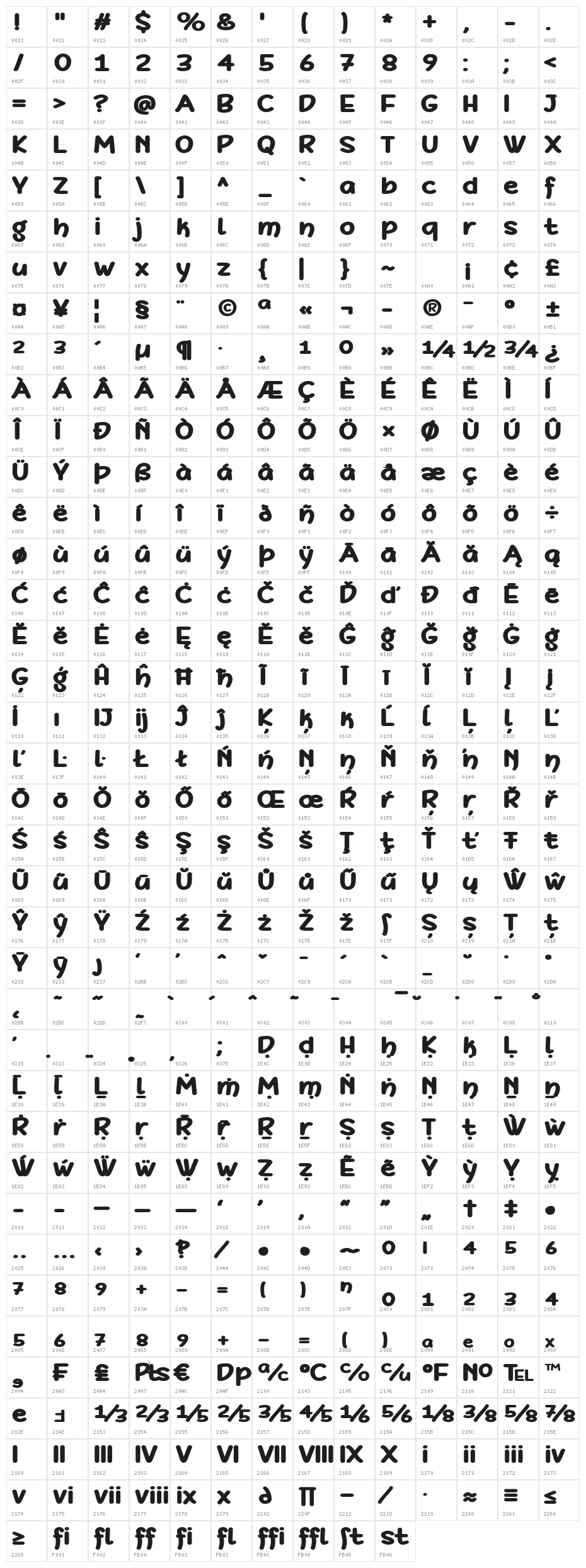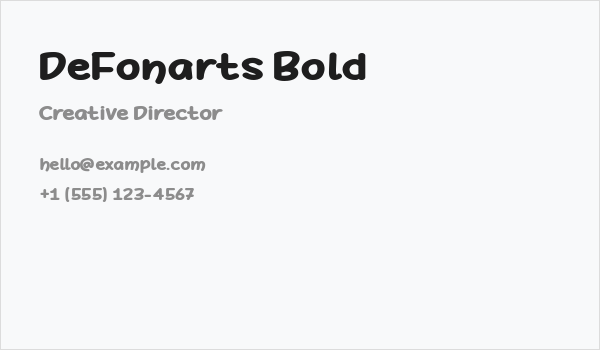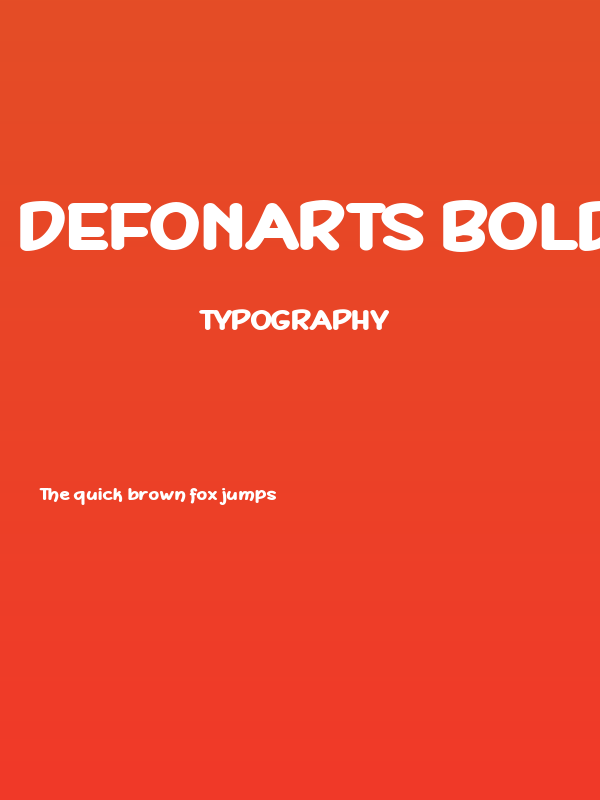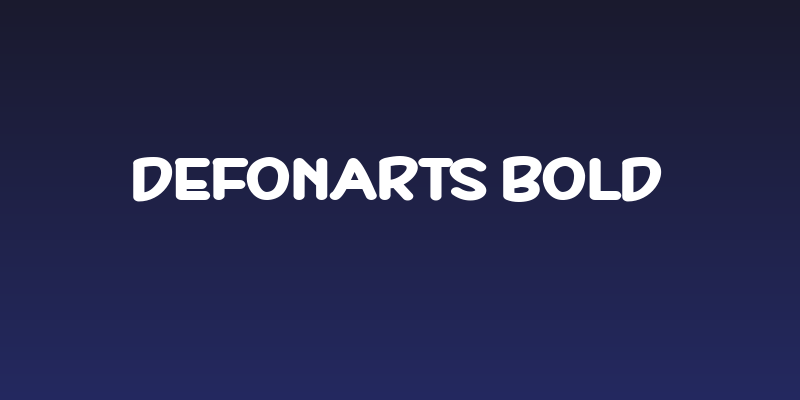
DeFonarts Bold Font
DeFonarts Bold Description
This font features a playful and bold style with rounded edges and a slightly whimsical appearance. The characters are thick and have a consistent weight throughout, giving them a strong presence on the page. The rounded terminals and smooth curves contribute to a friendly and approachable look. The uppercase and lowercase letters maintain a uniform width, while the numbers and special characters are designed to match the overall aesthetic. This font is highly legible and stands out due to its boldness and unique character shapes.
| Proposed Projects | Ideal for children's books, playful branding, posters, and casual invitations. |